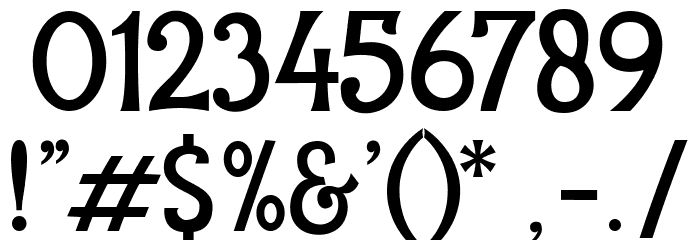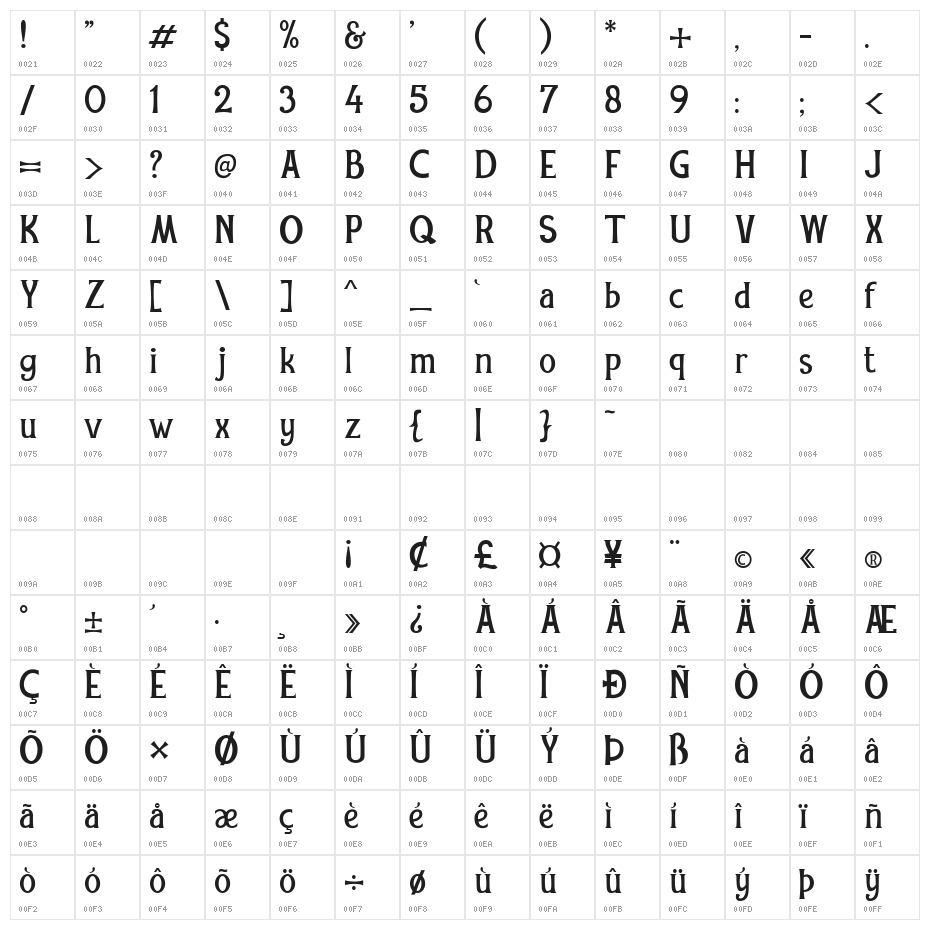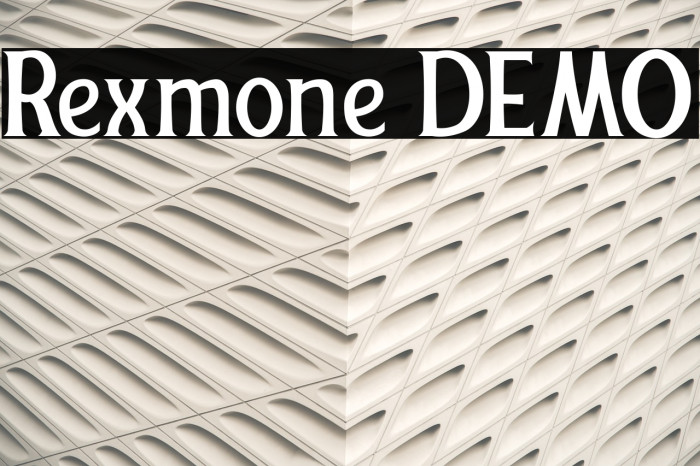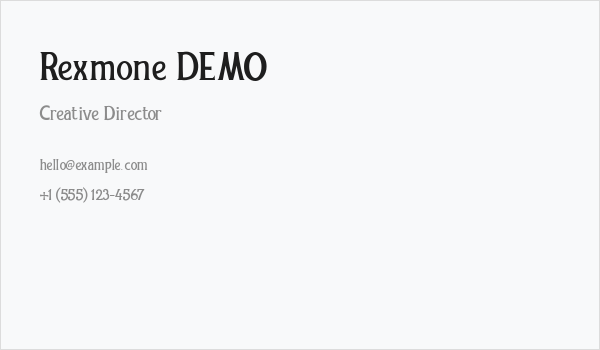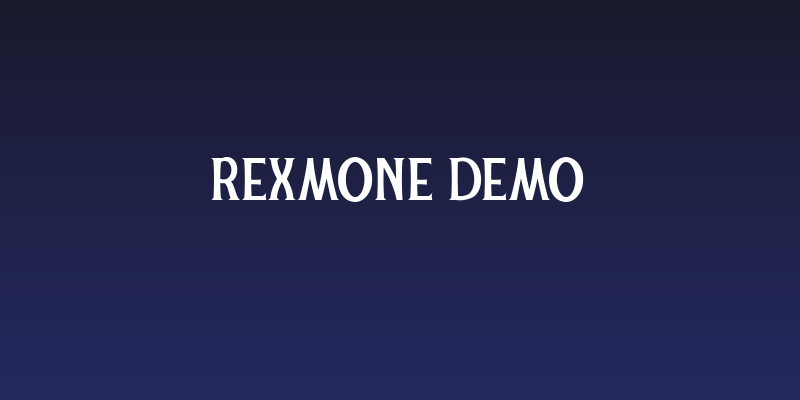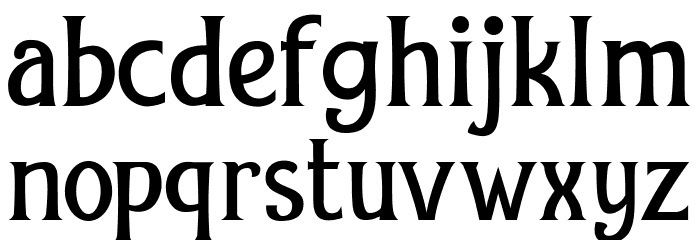
Rexmone DEMO Font
Rexmone DEMO Description
This font features a bold and dynamic design with a distinct flair, characterized by its sharp serifs and slightly condensed letterforms. The uppercase letters exhibit a strong presence with a slight curvature that adds a touch of elegance. The lowercase letters maintain a consistent style, with unique elements such as the curved tail on the 'g' and the open loop of the 'e'. The numerals are well-proportioned, ensuring readability while maintaining the font's overall aesthetic. Special characters are designed with the same attention to detail, making them suitable for various applications.
| Proposed Projects | Ideal for branding, editorial design, and packaging where a strong, elegant presence is desired. |